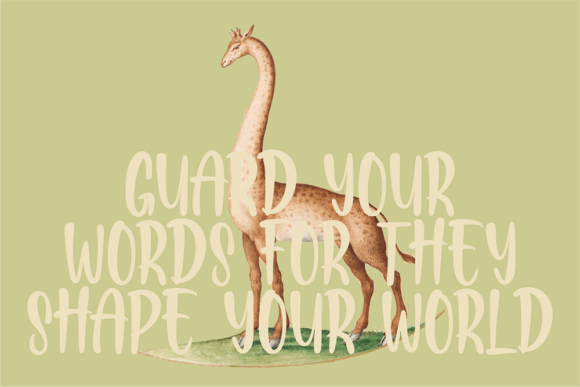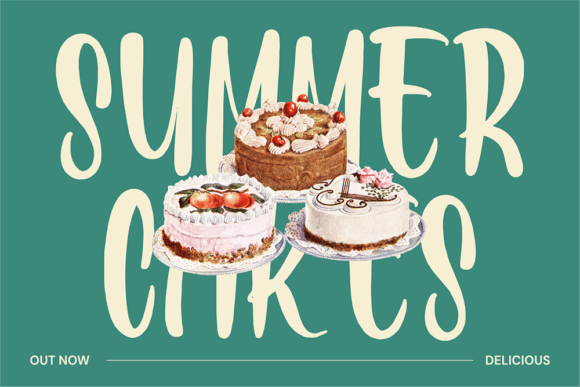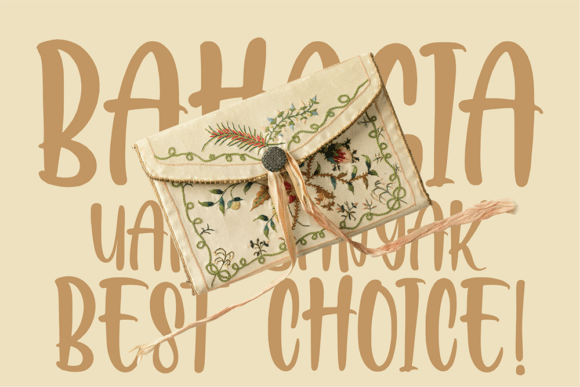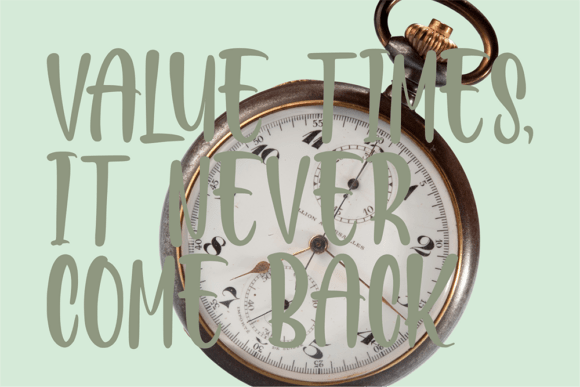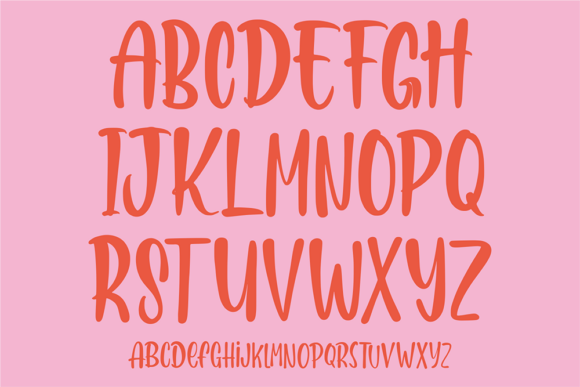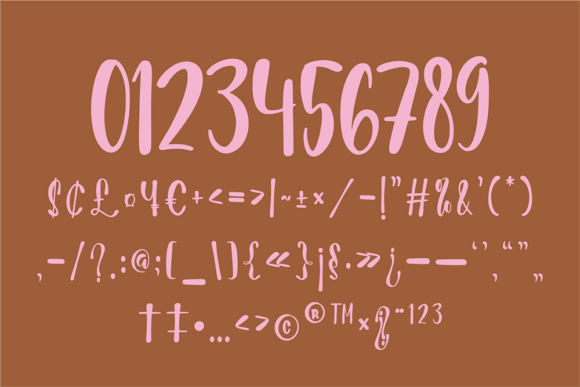
Introducing Adielah Font: The Handwritten Typeface with Personality and Authenticity
In the world of typography, a font can make all the difference in the success of a design project. With so many options available, it’s not easy to find a typeface that stands out from the crowd while still conveying the desired message. This is where Adielah Font comes in – a handwritten typeface designed by Enxyclo Studio that exudes personality, authenticity, and a playful spirit.
A Cozy, Natural Aesthetic with a Handcrafted Style
Adielah Font is designed to bring a cozy, natural aesthetic to your design projects. With its handcrafted style, this font family showcases a fluid, organic grace that is intrinsically original. The result is a typeface that feels approachable, friendly, and engaging. Whether you’re working on a branding project, a website, or a marketing campaign, Adielah Font is the perfect choice for designers and crafters looking to add a personal touch to their work.
Precision-Designed for Versatility and Readability
Adielah Font is not just a pretty face – it’s also designed with precision to ensure versatility and readability. The font family includes a comprehensive list of lettering options, such as uppercase, lowercase, numerals, punctuation, and symbols, making it suitable for a wide range of design applications. With Adielah Font, you can create beautiful typography that is both visually appealing and easy to read.
Key Features of Adielah Font
- Handwritten typeface with a playful spirit and adaptable style
- Precision-designed by Enxyclo Studio for a cozy, natural aesthetic
- Comprehensive list of lettering options, including uppercase, lowercase, numerals, punctuation, and symbols
- Multilingual support for worldwide creativity
- 388 distinctive glyphs, including ligature and alternate characters
- Special ligatures for added flair and personality
Why Choose Adielah Font?
So why choose Adielah Font for your design projects? Here are just a few reasons:
- Unique personality: Adielah Font has a distinct, handcrafted style that sets it apart from other typefaces
- Versatility: With its comprehensive list of lettering options and multilingual support, Adielah Font can be used for a wide range of design applications
- Readability: Despite its playful spirit, Adielah Font sacrifices no readability, ensuring that your message is conveyed clearly and effectively
In conclusion, Adielah Font is a unique and versatile handwritten typeface that is perfect for designers and crafters looking to add a personal touch to their work. With its precision-designed style, comprehensive list of lettering options, and multilingual support, Adielah Font is suitable for a wide range of design applications. Whether you’re working on a branding project, a website, or a marketing campaign, Adielah Font is the perfect choice for anyone looking to create beautiful, engaging typography.